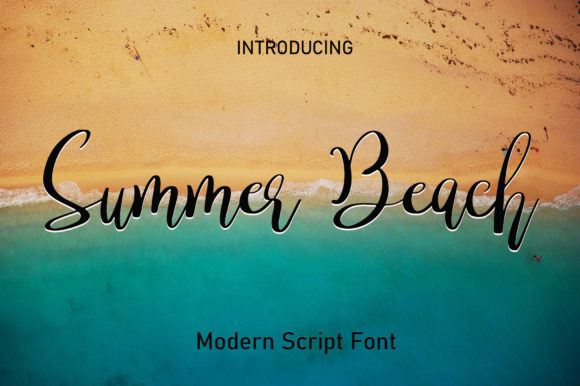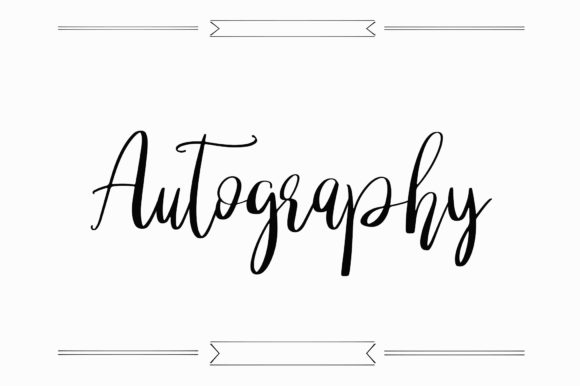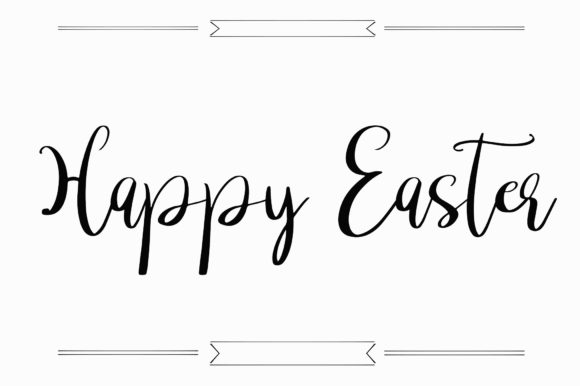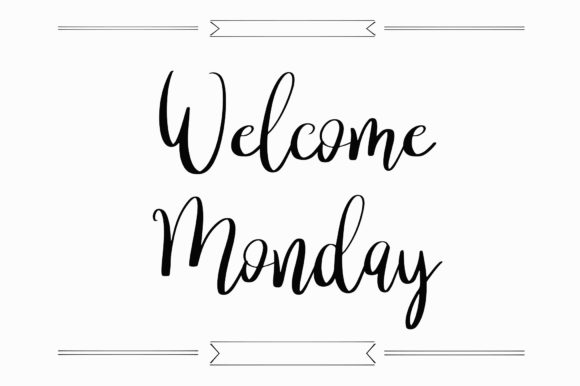
About Summer Beach Font
Summer Beach is a calligraphy typeface that is both romantic and sweet. Its characters dance along the baseline, giving it a dynamic and lively feel. This font can add a luxurious spark to any design project you wish to create, making it more appealing and engaging.
The romantic nature of Summer Beach makes it perfect for projects that require a touch of love and warmth. Whether you’re designing wedding invitations, love letters, or romantic quotes, Summer Beach can help you convey the right emotion and message.
One of the standout features of Summer Beach is its sweetness. This gives it a warm and inviting feel, making it perfect for projects that require a personal touch. Whether you’re designing a greeting card, a logo, or a social media post, Summer Beach can add that extra touch of sweetness that makes your designs stand out.
Summer Beach is not just a font; it’s a tool that can help you express your creativity. Its dancing characters and luxurious spark can bring a sense of joy and elegance to your designs, making them more appealing and engaging. Whether you’re designing for a client or for your own personal projects, Summer Beach can help you convey the right emotion and message.
Moreover, Summer Beach is PUA encoded, which means you can easily access all of the amazing glyphs and ligatures that come with the font. These extra characters can add a whole new level of depth and creativity to your designs, allowing you to create truly unique and personalized projects.
In conclusion, Summer Beach is a romantic, sweet, and dynamic calligraphy typeface that is perfect for a wide range of projects. Its PUA encoding allows you to access a wealth of extra characters, adding a new level of creativity to your designs. So, whether you’re a professional designer or a hobbyist, Summer Beach is a font worth considering for your next project. Why not give Summer Beach a try and see how it can enhance your designs? You might be surprised at the difference it can make!